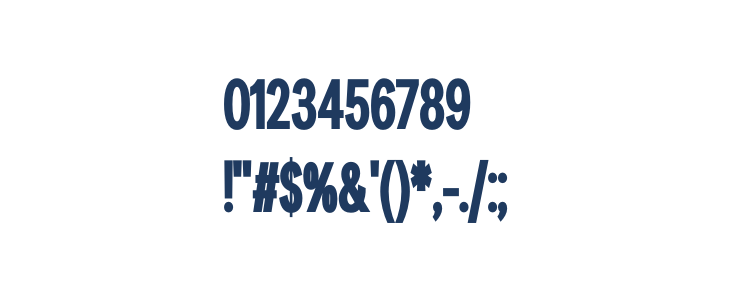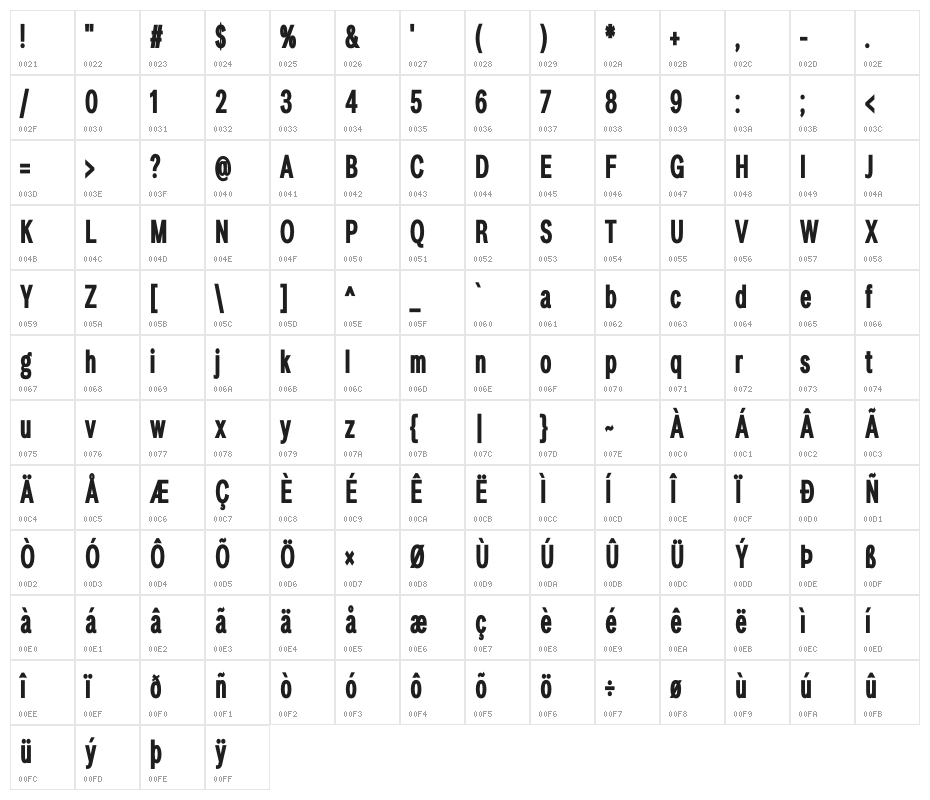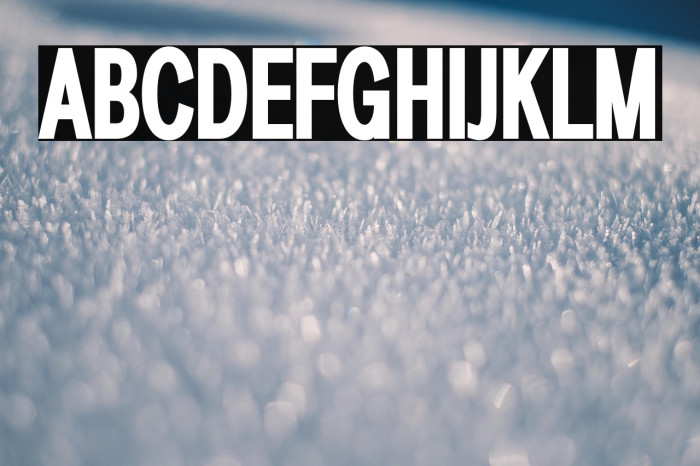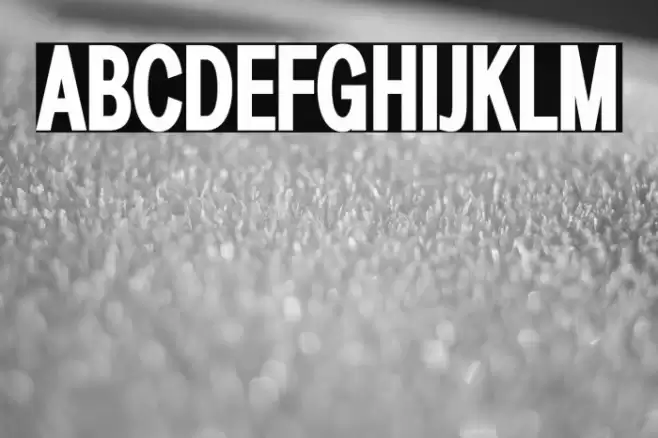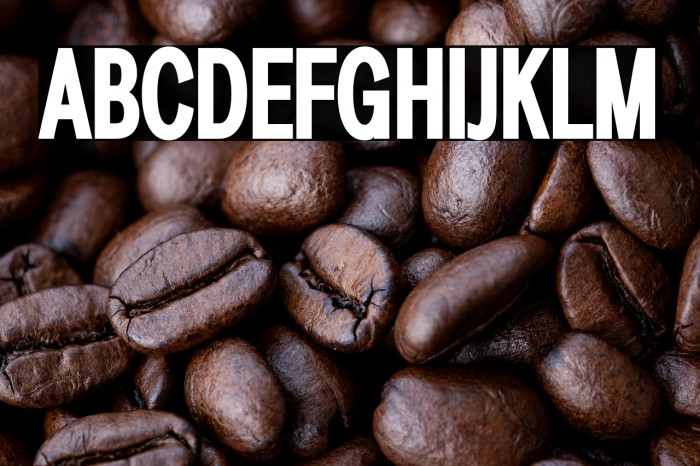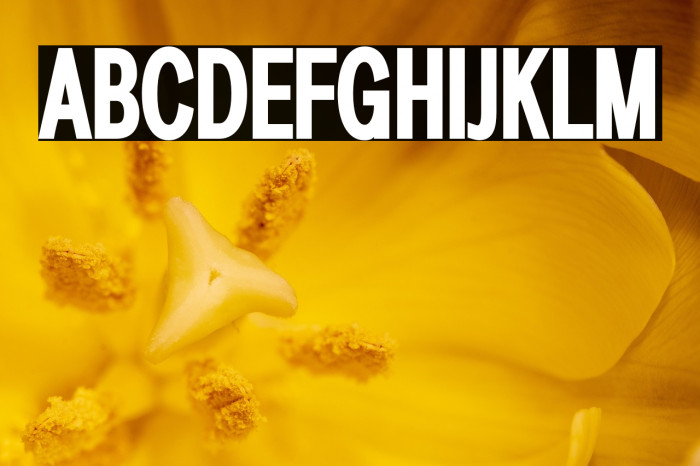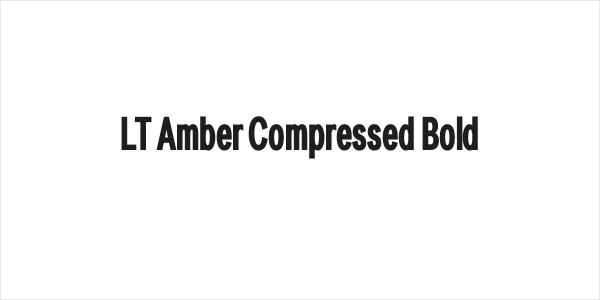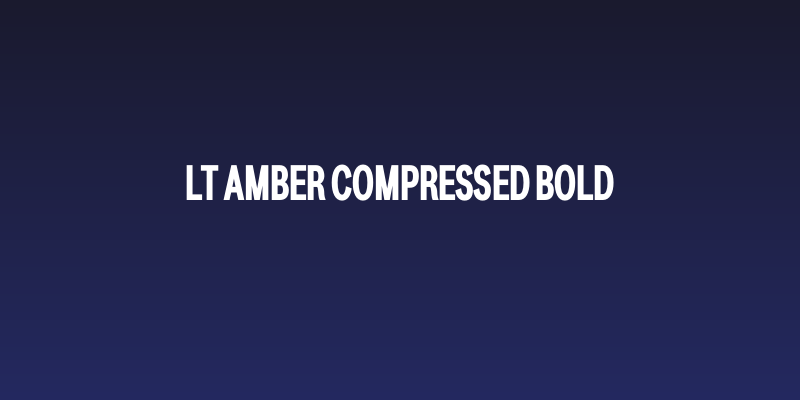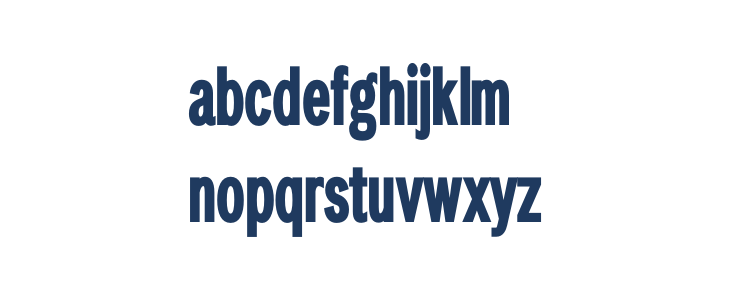
LT Amber Compressed Bold Font
LT Amber Compressed Bold Description
This font features a bold and impactful design with a compressed width, making it ideal for creating strong visual statements. The characters are uniformly thick, providing a consistent and powerful appearance. The uppercase and lowercase letters are well-balanced, ensuring readability even at smaller sizes. The numerals and special characters maintain the same boldness, contributing to a cohesive look across all text elements. This style is particularly effective for attention-grabbing headlines and titles, where a commanding presence is desired.
| Proposed Projects | Ideal for advertising, posters, branding, and any project requiring strong, attention-grabbing text. |